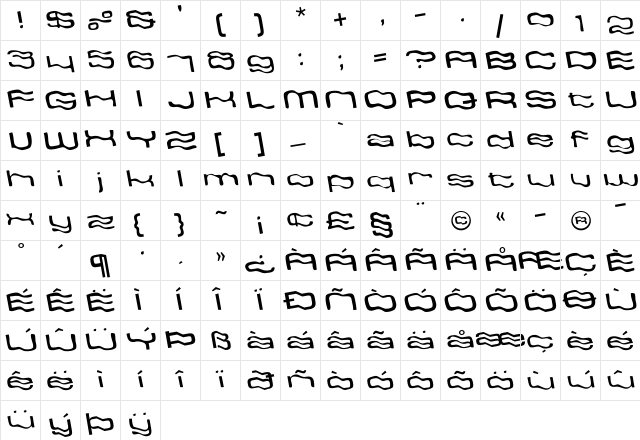
WaterFlag LT Regular
Design Context for WaterFlag LT Typeface
WaterFlag LT is a composed and adaptable typeface that performs quietly and consistently across a wide range of design contexts. The delicate stroke weight brings airiness and refinement to layouts.